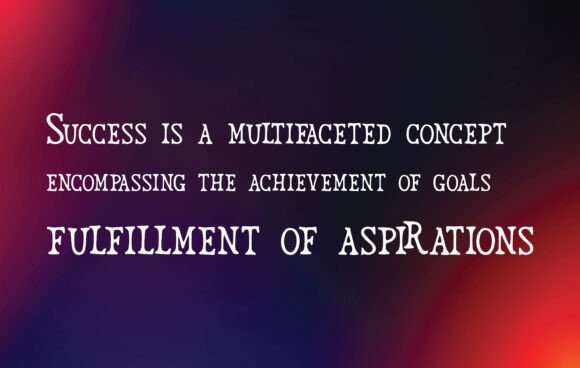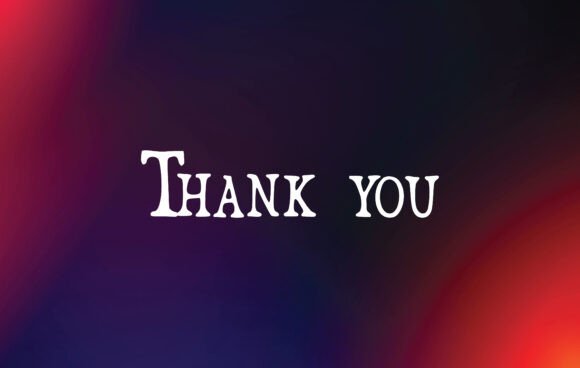
Ares Font: Elevate Your Creative Projects with Elegance and Sophistication
In the world of typography, fonts play a crucial role in conveying messages, evoking emotions, and creating visual identities. For designers, crafters, and creative enthusiasts, finding the perfect font can be a daunting task. However, if you’re looking for a serif font that exudes elegance, sophistication, and creativity, look no further than Ares Font. In this article, we’ll explore the features, benefits, and uses of Ares Font, and why it’s an excellent choice for your next project.
What is Ares Font?
Ares Font is a stunning serif font that boasts a unique blend of classic and modern elements. Its distinctive design makes it an ideal choice for creating visually appealing logos, branding materials, quotes, and more. With its elegant lines, refined curves, and precise craftsmanship, Ares Font is sure to elevate your creative ideas to new heights.
Key Features of Ares Font
- Serif Elegance: Ares Font features traditional serif elements that add a touch of sophistication and refinement to your designs.
- Unique Character: The font’s distinctive design ensures that your text stands out from the crowd, making it perfect for logos, branding, and quotes.
- High Versatility: Ares Font can be used for a wide range of creative projects, from print materials to digital applications.
- Easy to Read: The font’s clear and legible design makes it easy to read, even at smaller sizes.
Benefits of Using Ares Font
So, why choose Ares Font for your creative projects? Here are just a few benefits of using this beautiful serif font:
- Enhance Your Brand Identity: Ares Font can help you create a unique and recognizable brand identity that sets you apart from the competition.
- Elevate Your Designs: With its elegant design, Ares Font can add a touch of sophistication and refinement to your designs, making them more visually appealing.
- Save Time: Ares Font is easy to use and works seamlessly across various design applications, saving you time and effort.
- Stand Out: The font’s unique character ensures that your text stands out from the crowd, making it perfect for logos, branding, and quotes.
Uses of Ares Font
Ares Font is an incredibly versatile font that can be used for a wide range of creative projects, including:
- Logo Design: Create stunning logos that make a lasting impression with Ares Font.
- Branding Materials: Use Ares Font to create consistent and recognizable branding materials, such as business cards, brochures, and letterheads.
- Quotes and Posters: Add a touch of elegance and sophistication to your quotes and posters with Ares Font.
- Digital Applications: Use Ares Font in digital applications, such as website headers, social media graphics, and more.
In conclusion, Ares Font is a beautiful and elegant serif font that can elevate your creative projects to new heights. With its unique character, high versatility, and ease of use, Ares Font is an excellent choice for designers, crafters, and creative enthusiasts. Whether you’re looking to create stunning logos, branding materials, quotes, or digital applications, Ares Font is the perfect choice. So why wait? Download Ares Font today and take your creative ideas to the next level!